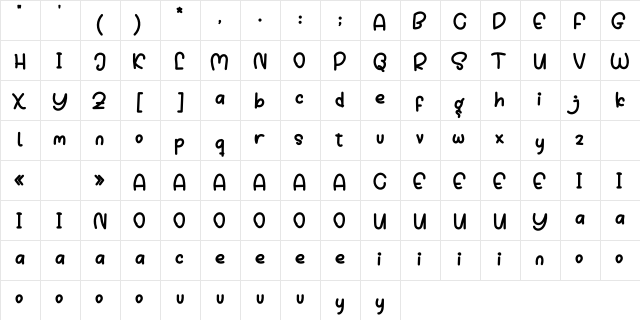
Marshmallow Personal Use
Design Context for Marshmallow Typeface
Marshmallow is a composed and adaptable typeface that performs quietly and consistently across a wide range of design contexts.